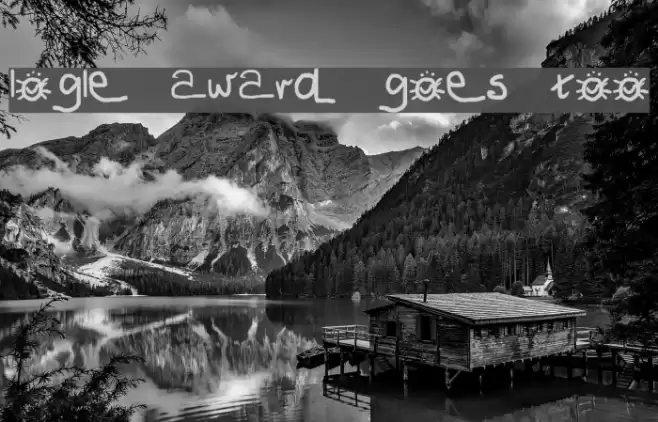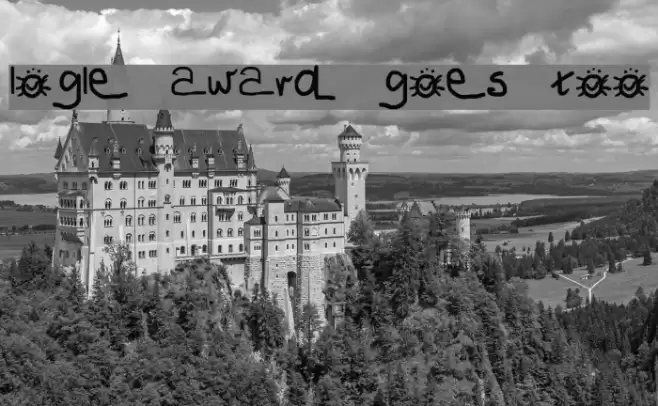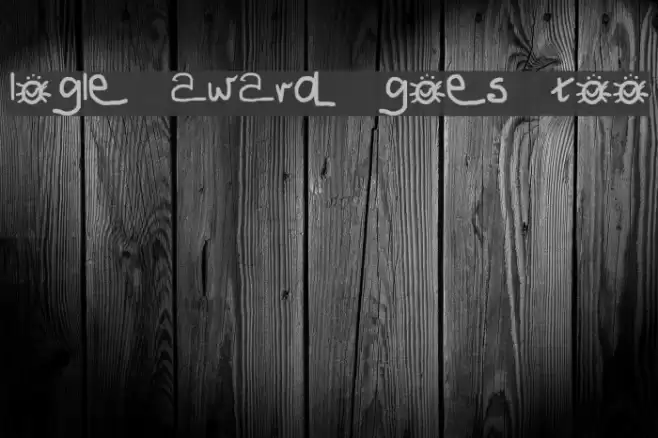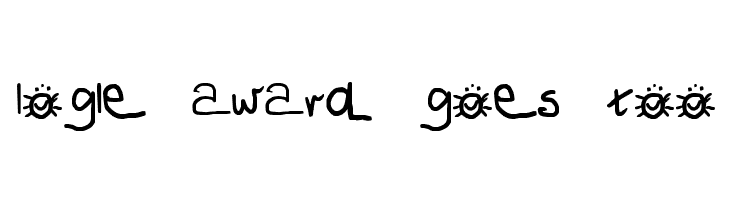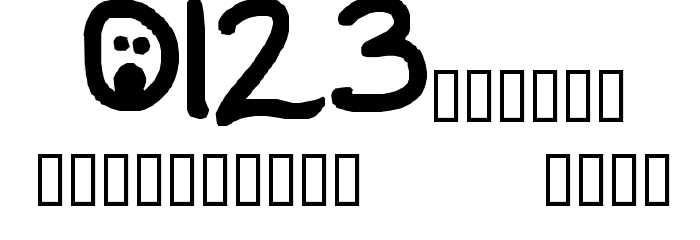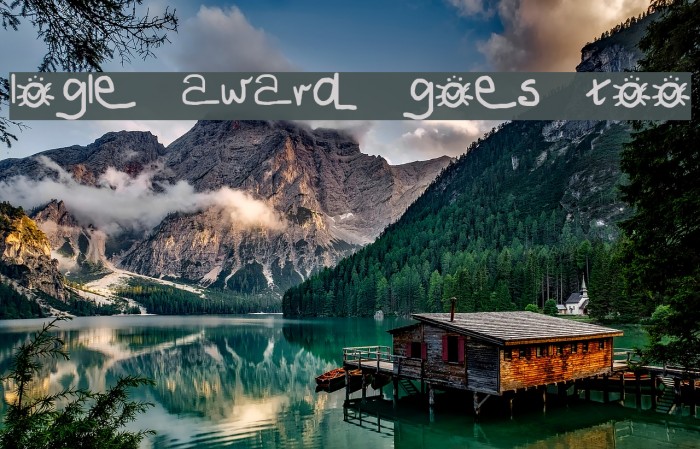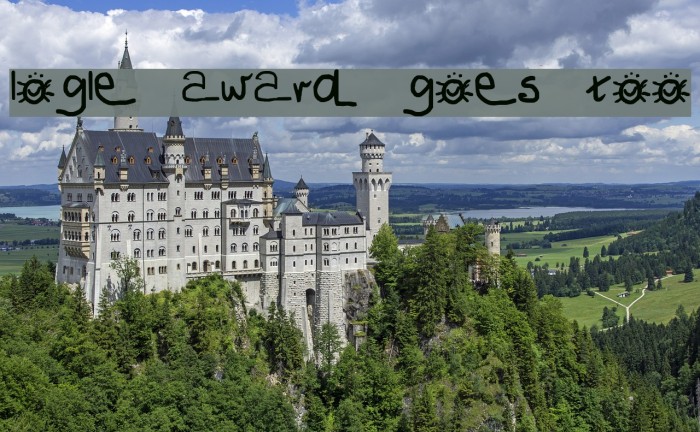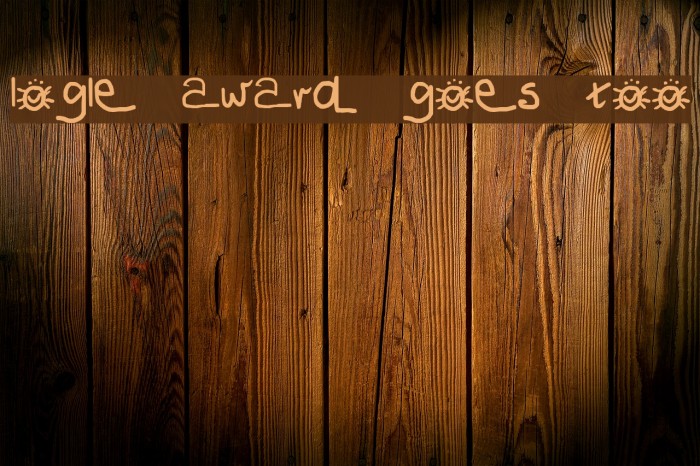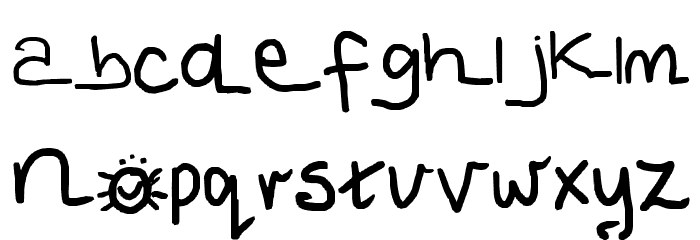
logie award goes too Font
logie award goes too Description
This font features a playful, handwritten style with a casual and informal appearance. The letters are slightly irregular, giving it a whimsical and friendly feel. The uppercase characters are bold and rounded, while the lowercase letters maintain a consistent flow with a touch of quirkiness. The numbers are bold and distinct, with a unique character that adds to the font's charm. Special characters are creatively designed, enhancing the font's overall playful aesthetic. This font is perfect for projects that require a personal touch or a fun, lighthearted vibe.
A playful, handwritten font with a whimsical and friendly style from Uncategorized fonts.
- Proposed Projects: Ideal for children's books, greeting cards, casual invitations, and playful branding.
- Overall Style: Playful
- Use Case: Logos, Headlines, Informal Text